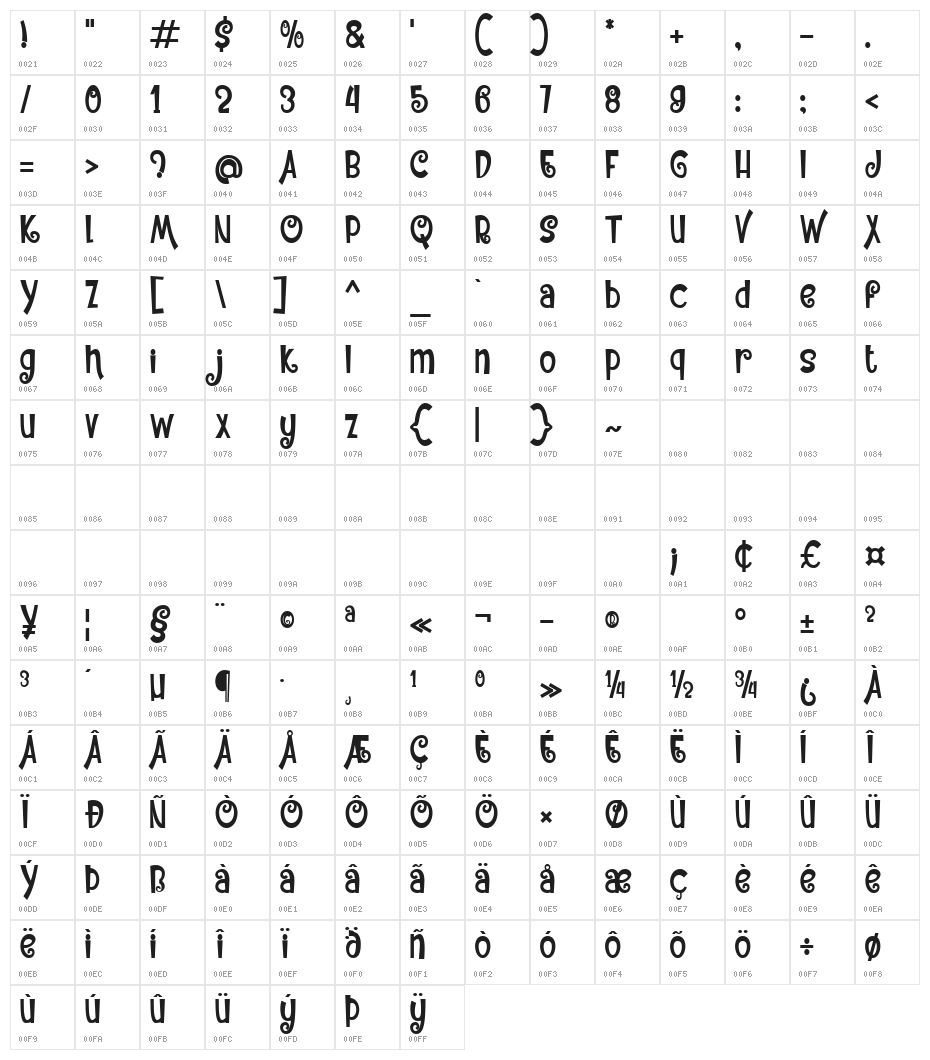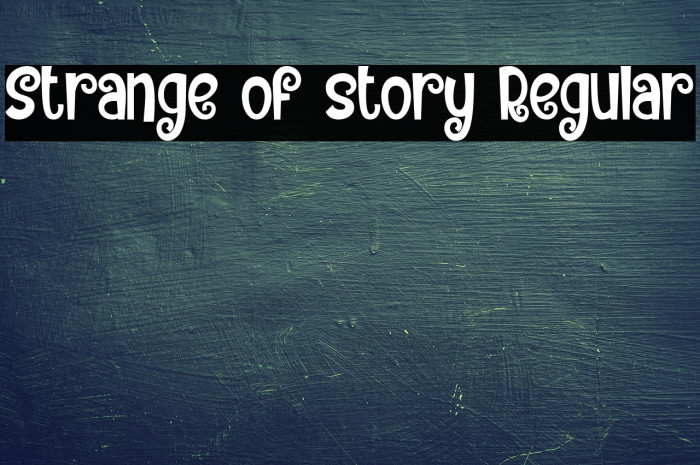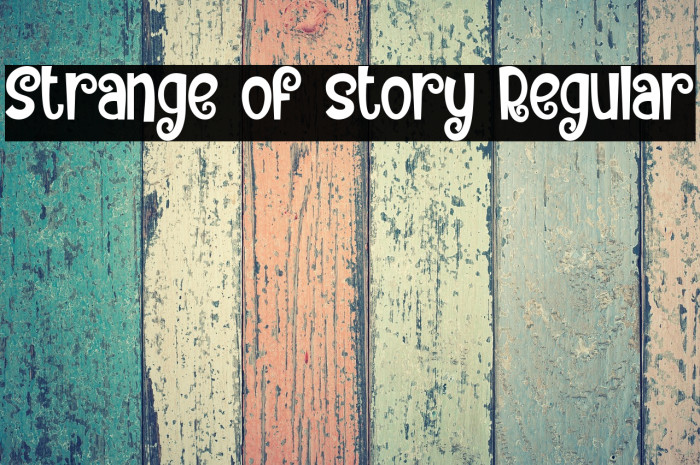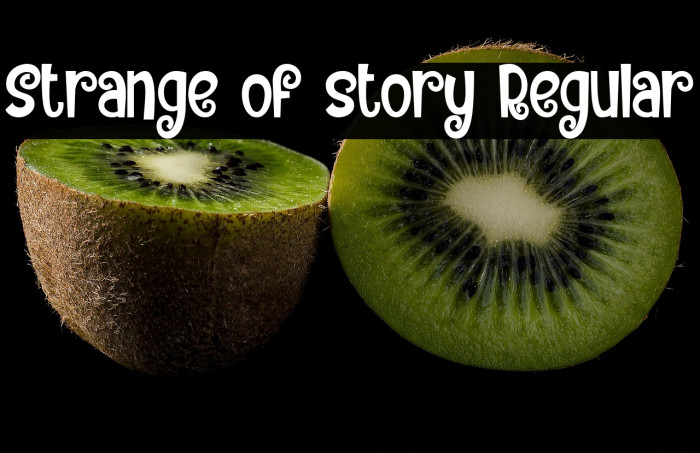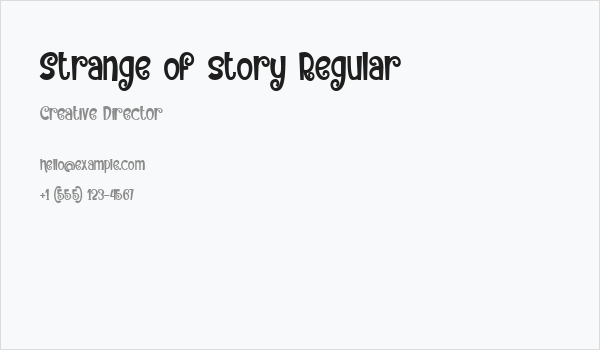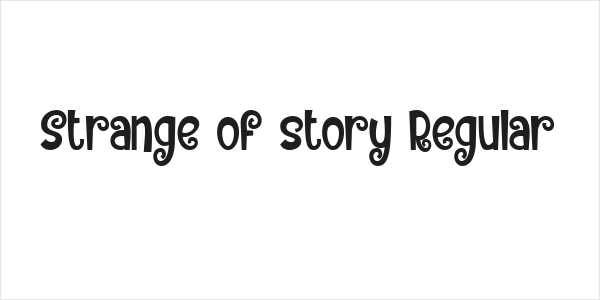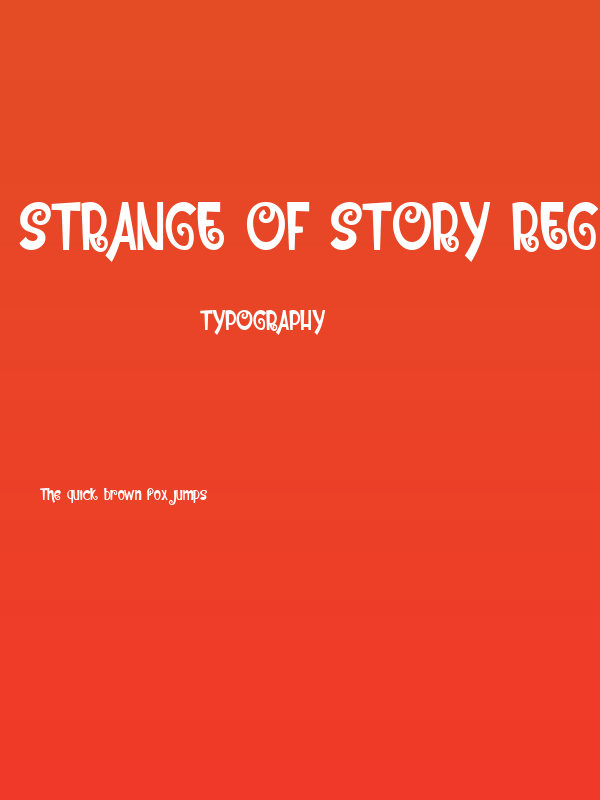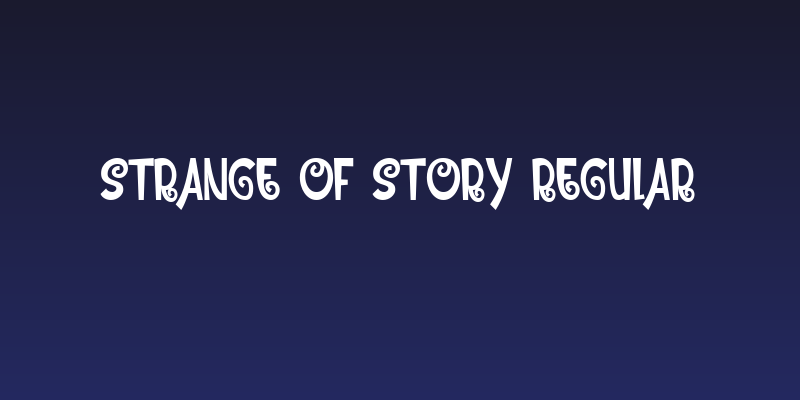
Strange of story Regular Font
Strange of story Regular Description
This font features a whimsical and playful design, characterized by its bold and curvy letterforms. The uppercase letters have a distinctive flair with exaggerated curves and swirls, particularly noticeable in characters like 'G', 'Q', and 'S'. The lowercase letters maintain this playful style, with unique elements such as the loop in the 'g' and the tail of the 'y'. The numbers are equally bold and maintain the font's overall quirky aesthetic. Special characters like the exclamation mark and ampersand are designed with the same creative flair, making this font ideal for projects that require a fun and eye-catching typeface.